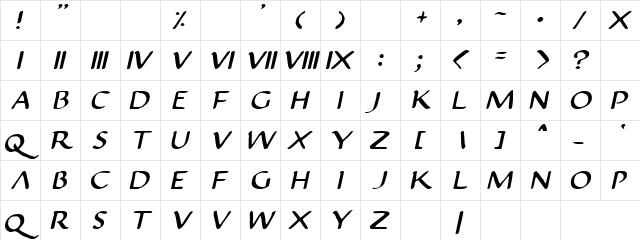
Alan Paine Regular
Design Context for Alan Paine Typeface
Alan Paine is a composed and adaptable typeface that performs quietly and consistently across a wide range of design contexts.